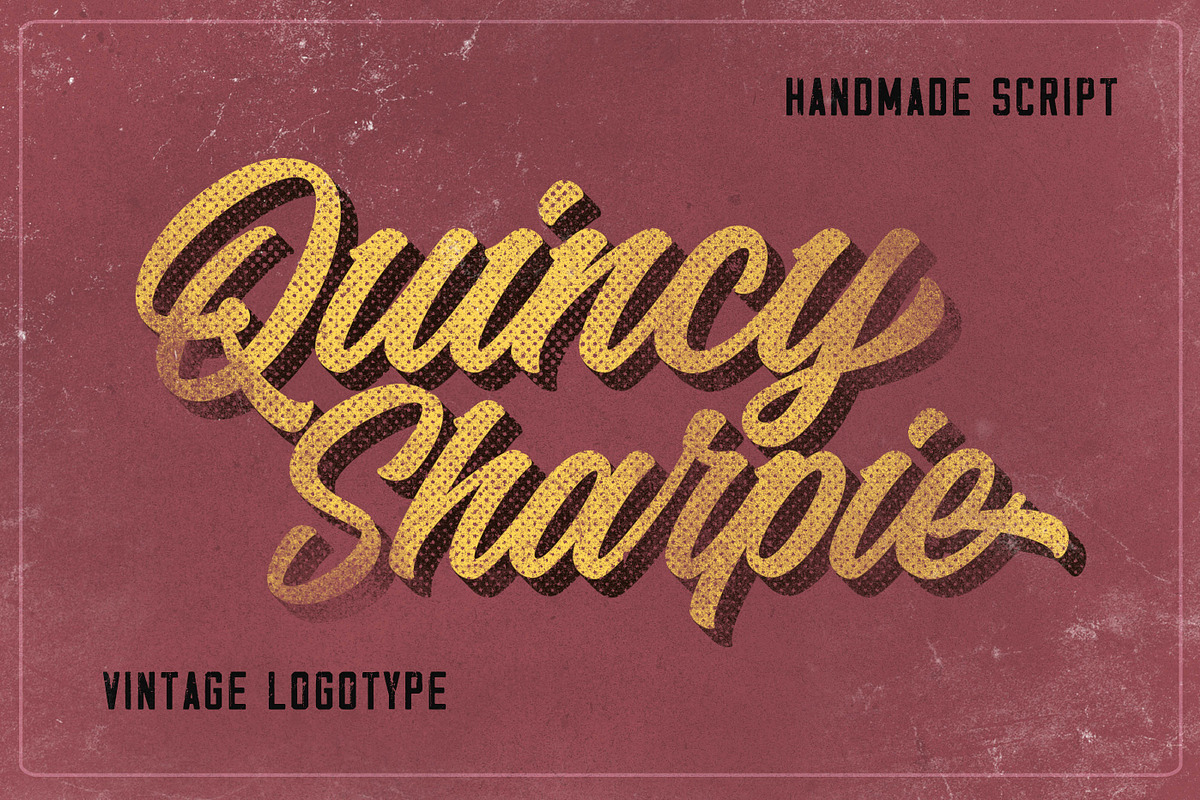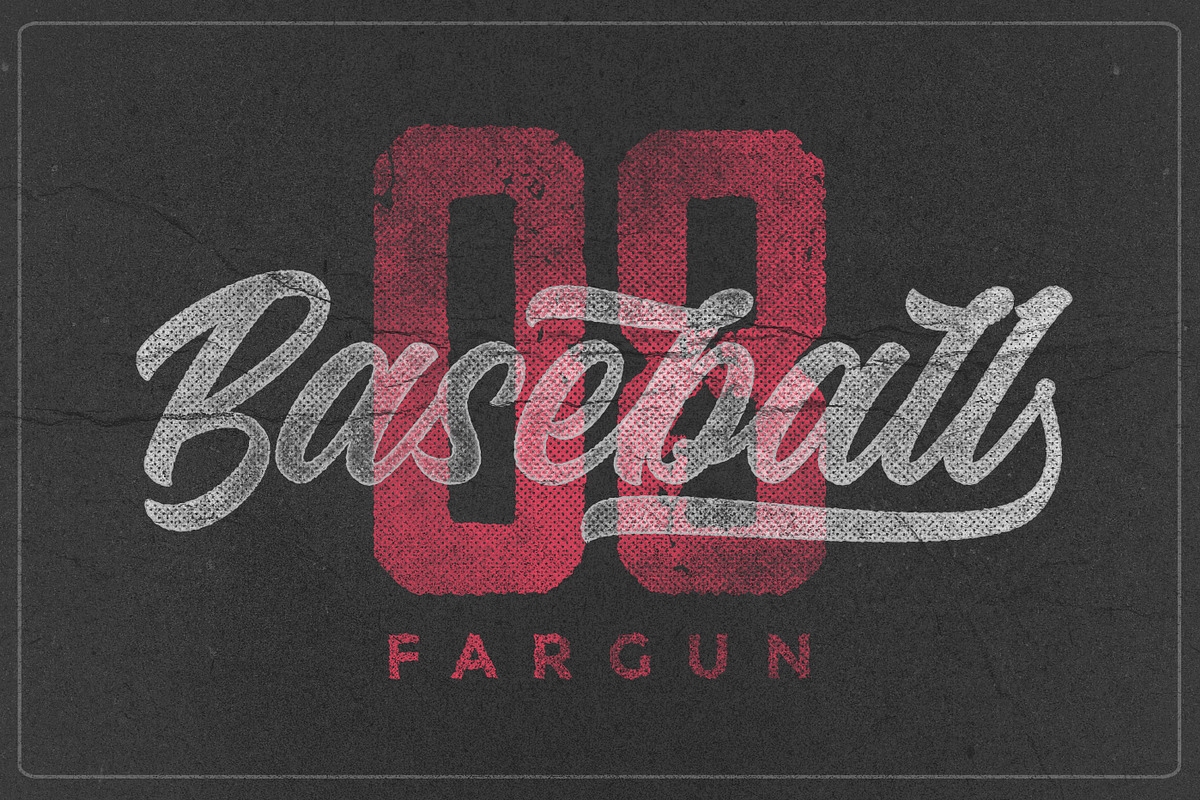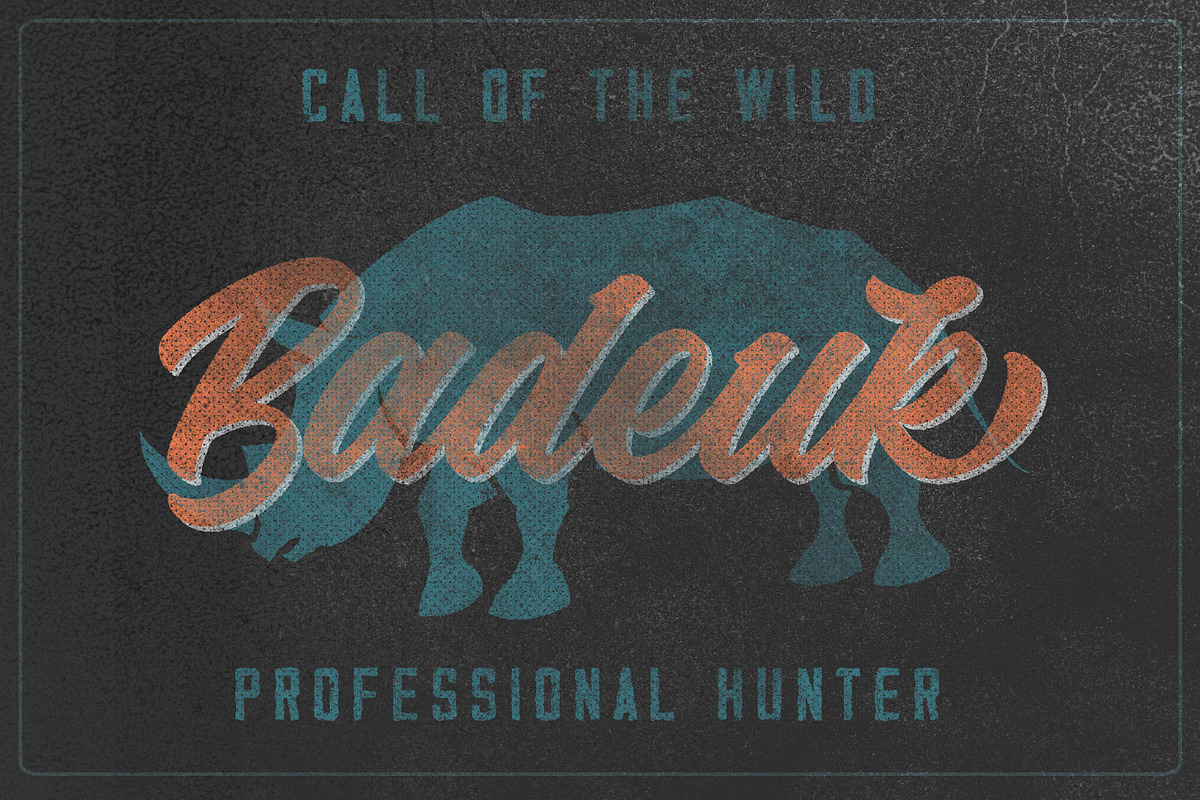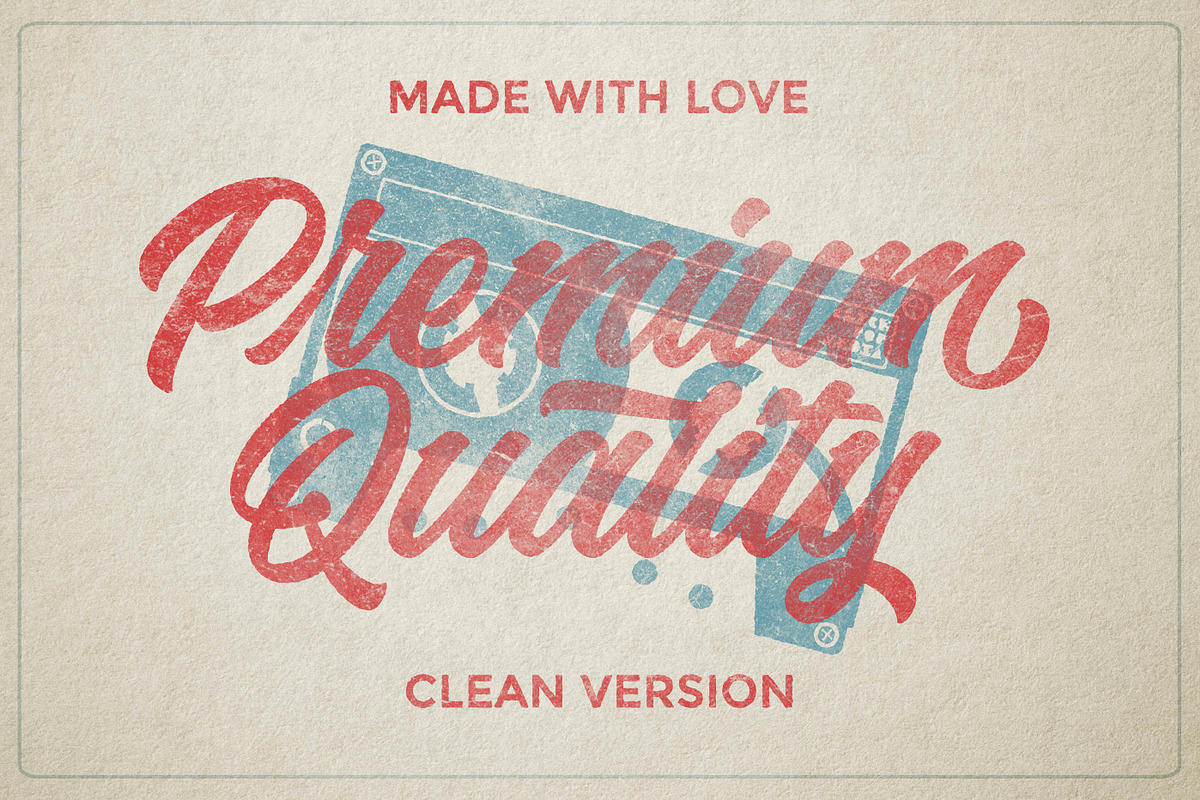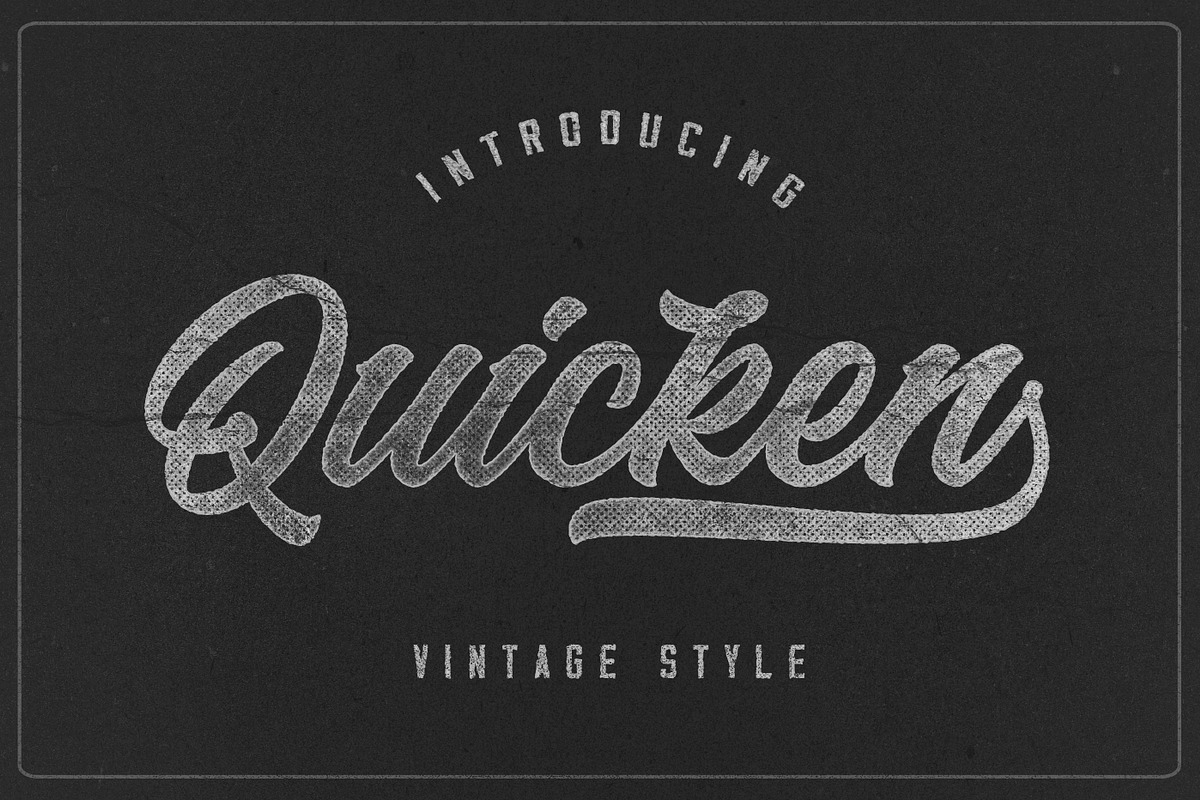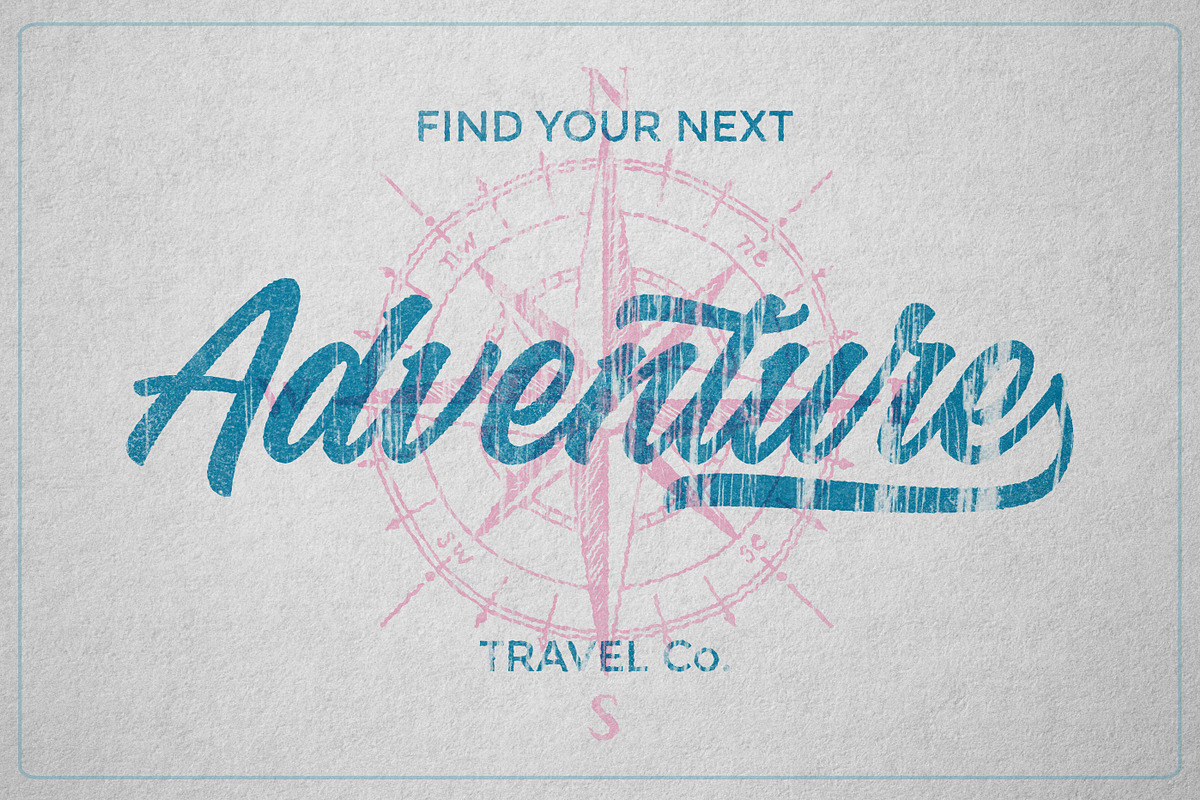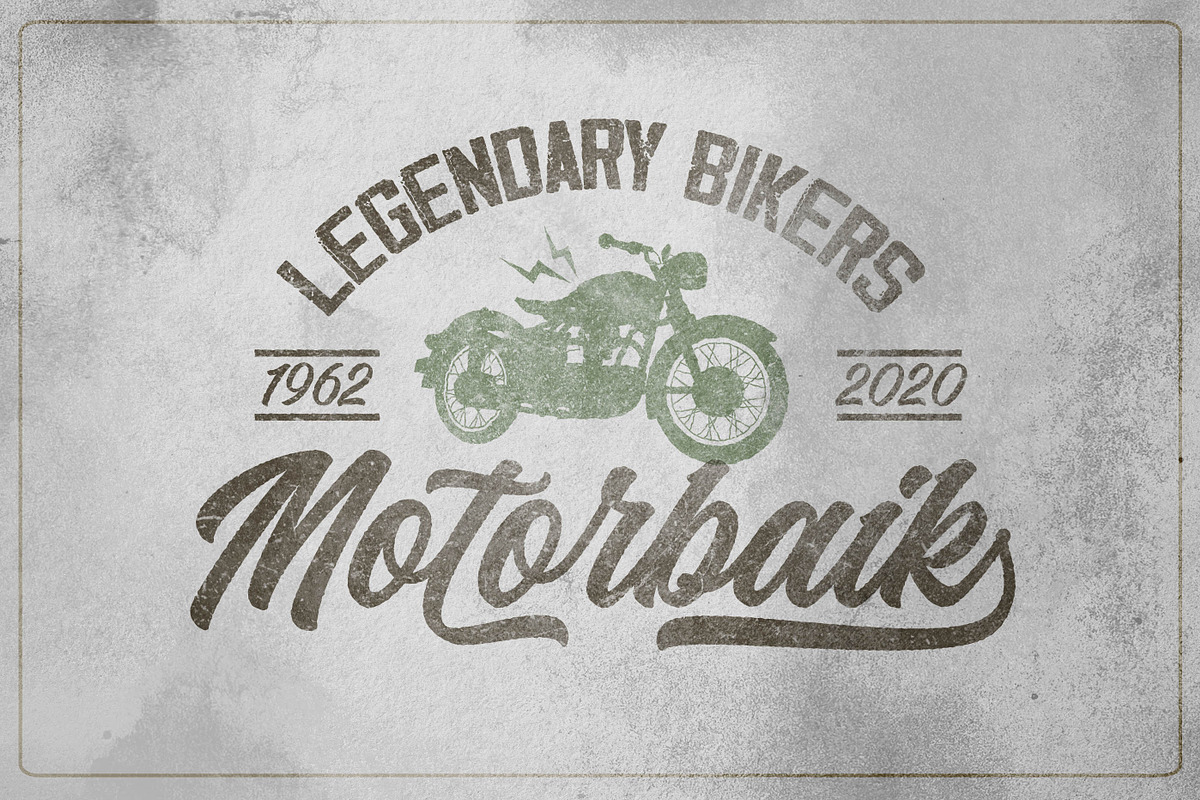
Quicken Vintage Logo Font
Quicken was inspired by the spirit of the past, when manual labor was common, and technology was just beginning to develop. Retro style and combination with Hand Lettering style, specially for traditional typography lovers and anyone who want to add natural handmade feeling in its brand identity. It comes with Lovely clean versions that expands its possibilities in use.
Quicken is very good looking in logo, labels, t-shirt prints, product packaging, invitations, advertising and others. I've designed some examples, so you can see how it can be used.